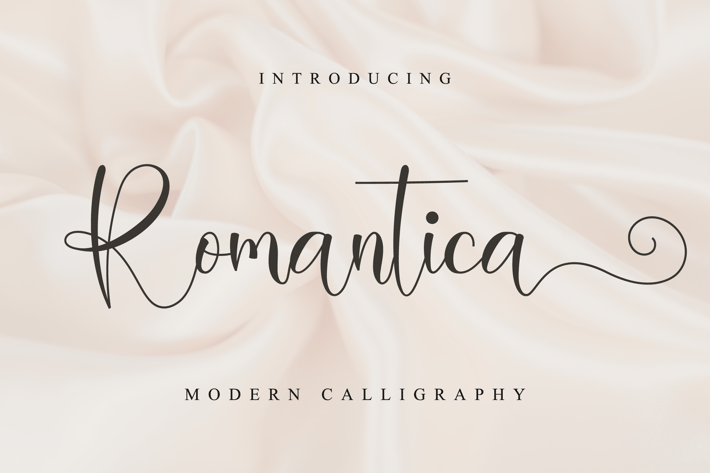
Romantica - Wedding Font
Romantica is an incredibly beautiful and classy handwritten font, described by an elegant touch, perfect for your favorite projects. Fall in love with its incredibly distinct and timeless style and use it to create spectacular designs!
Modern Handwritten Font
Beautiful Swash (Ending tail)
Beautiful Titling (Beginning tail)
Special Ligatures